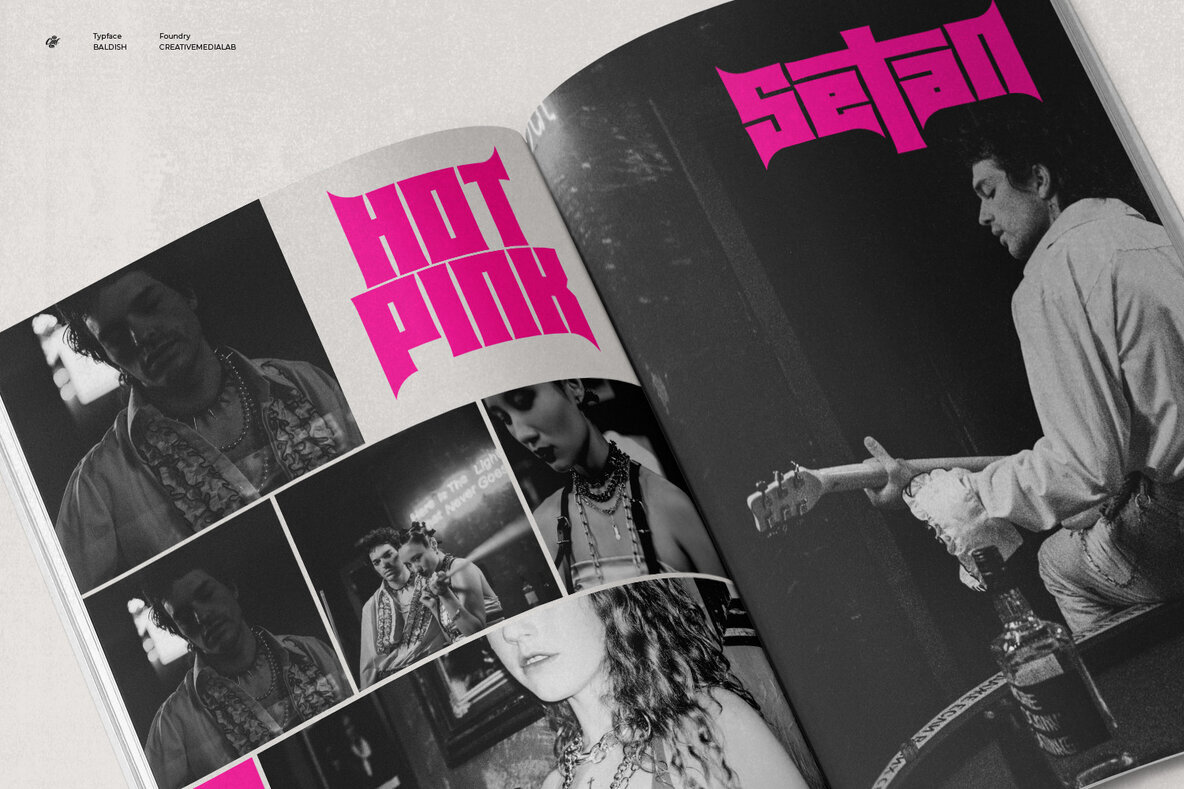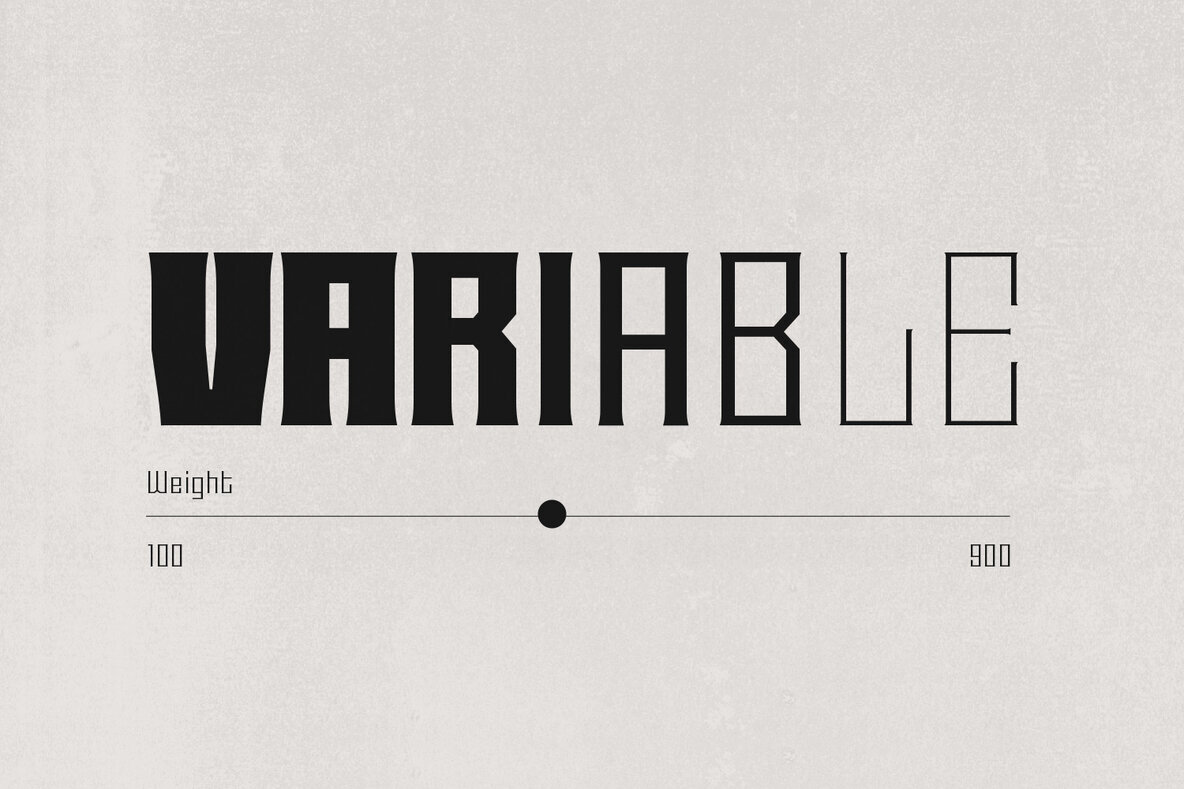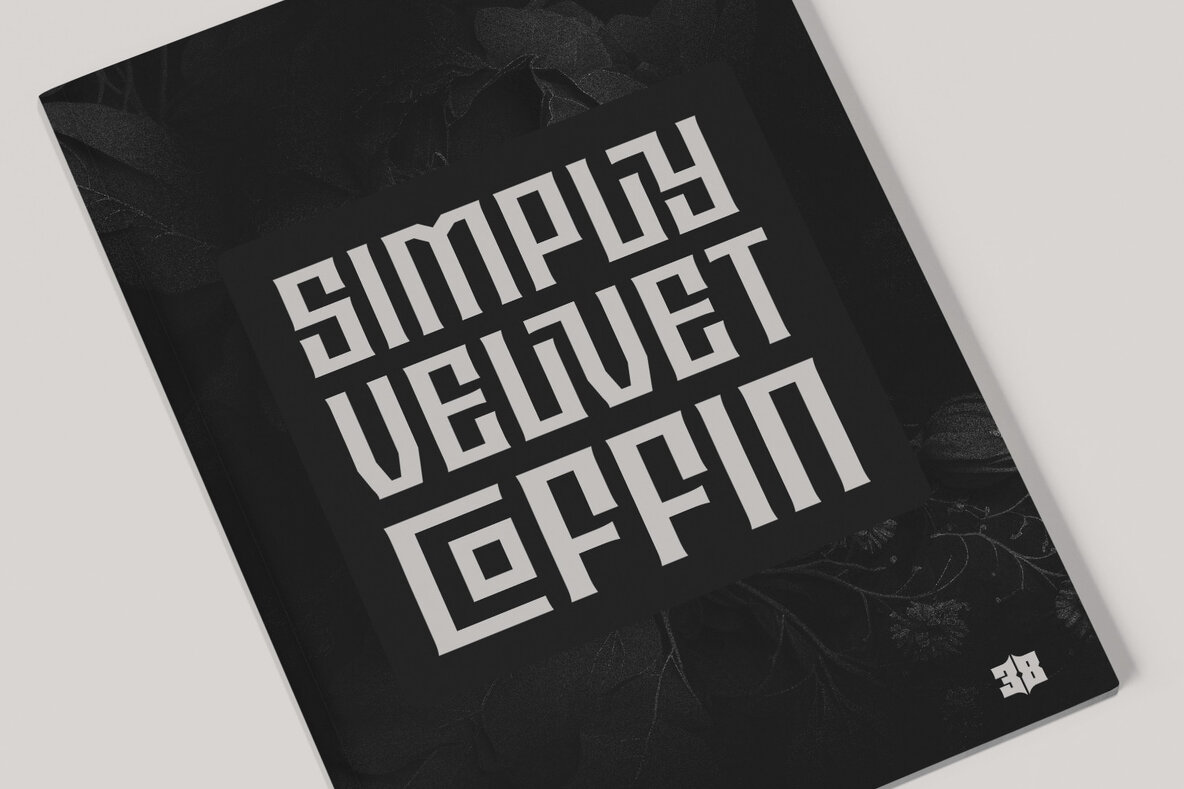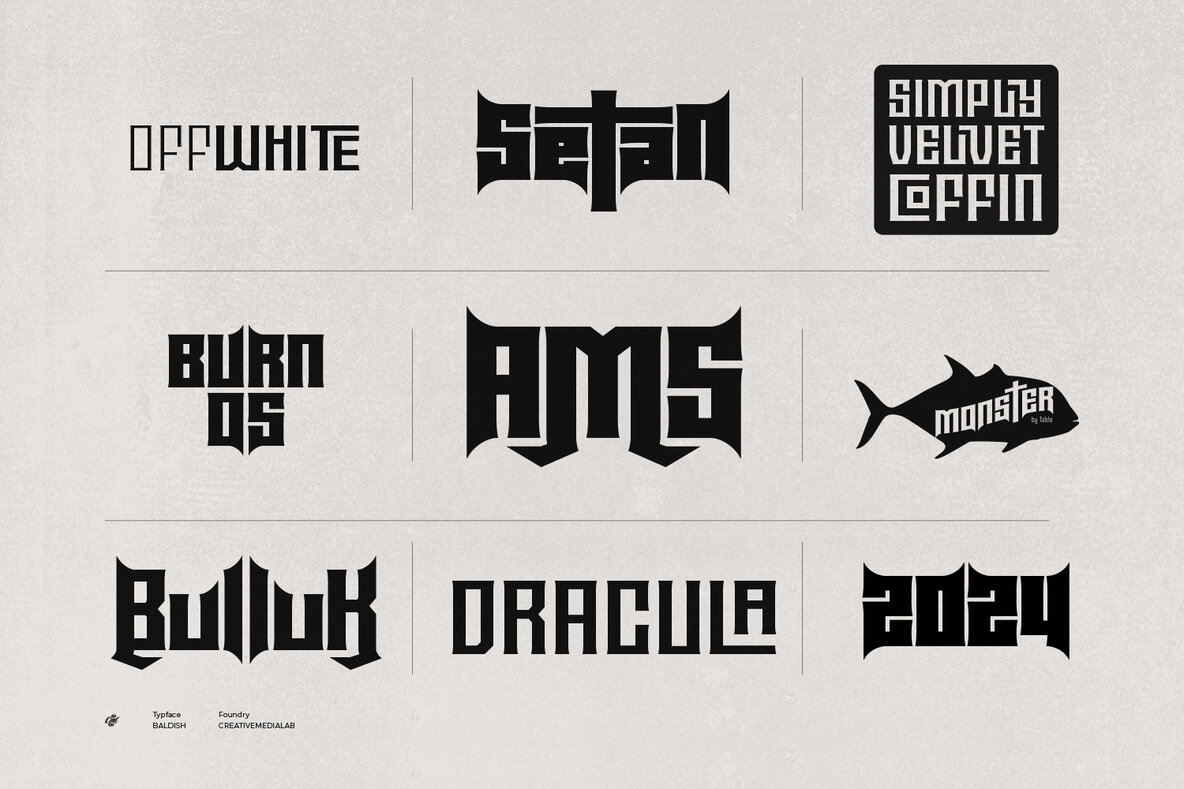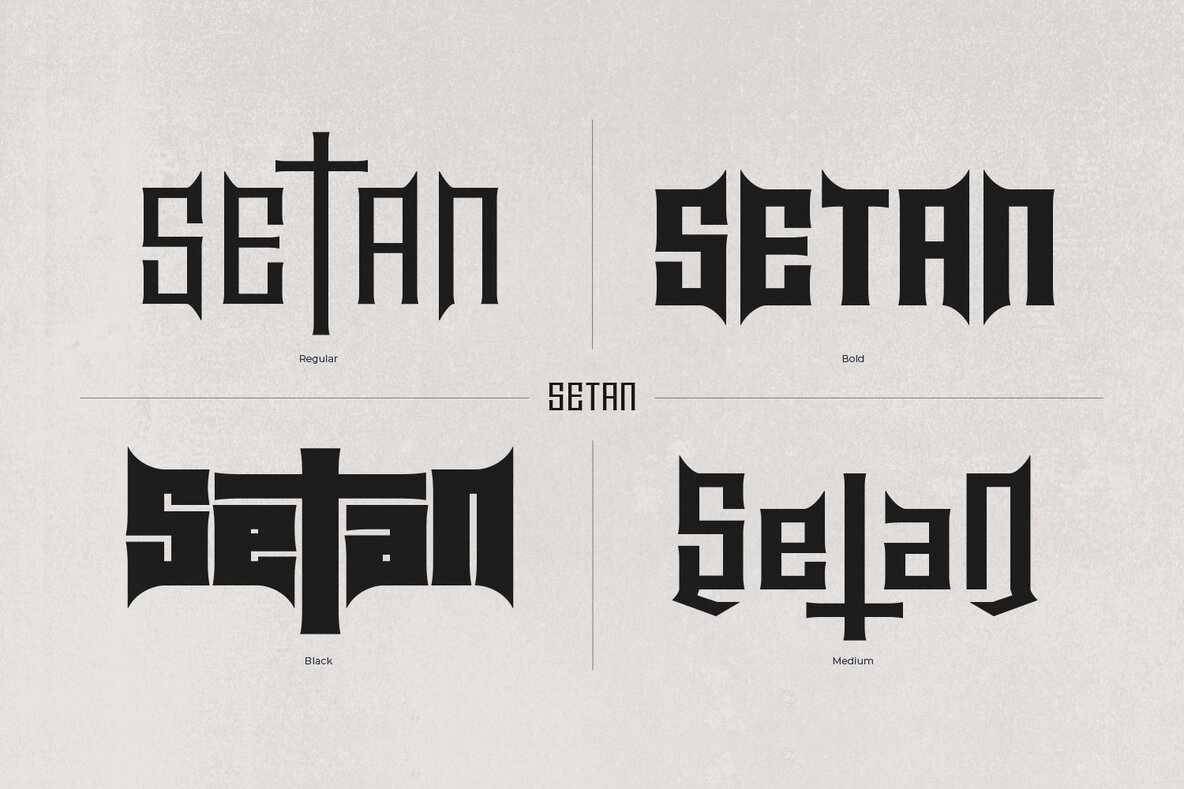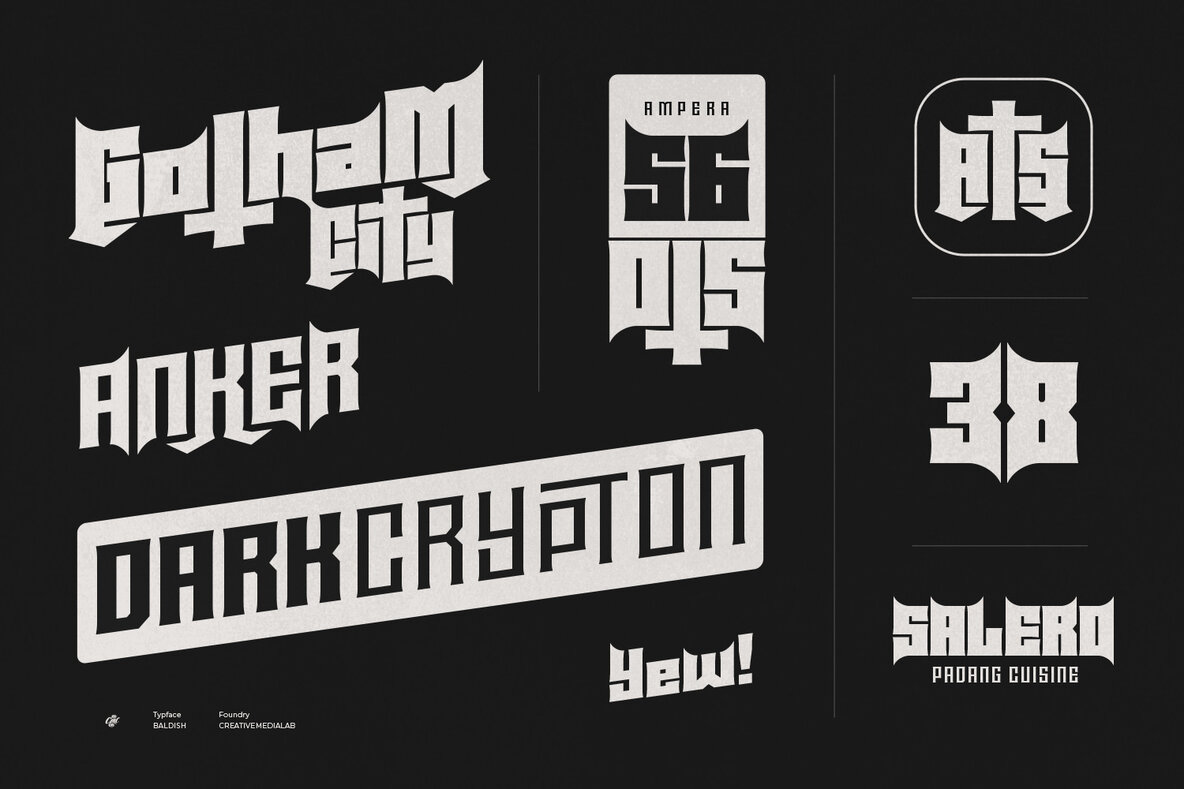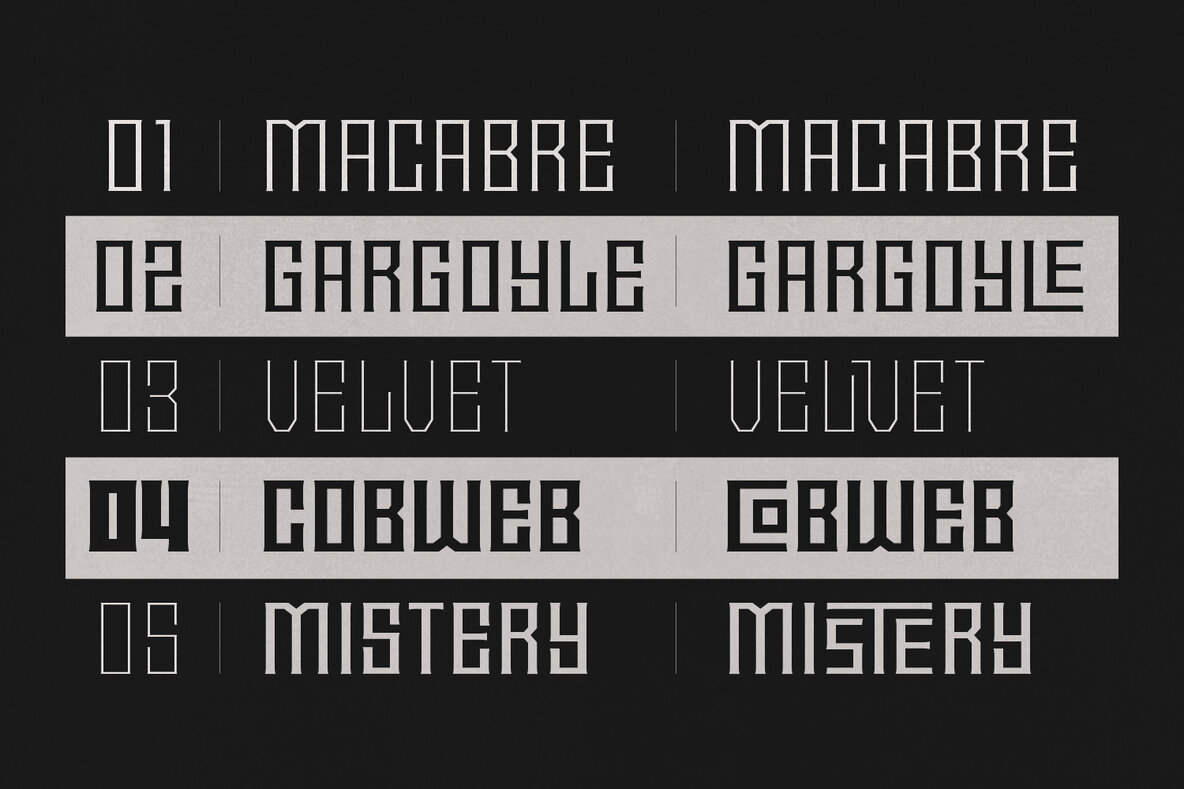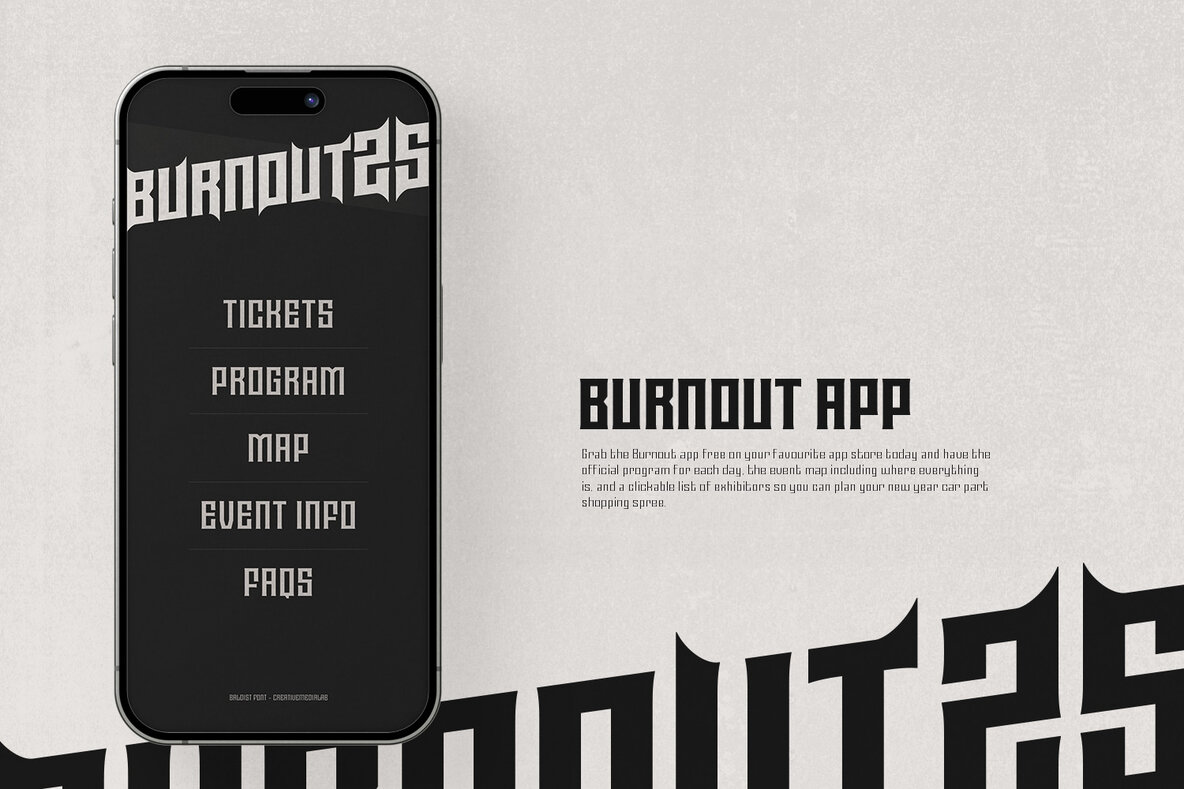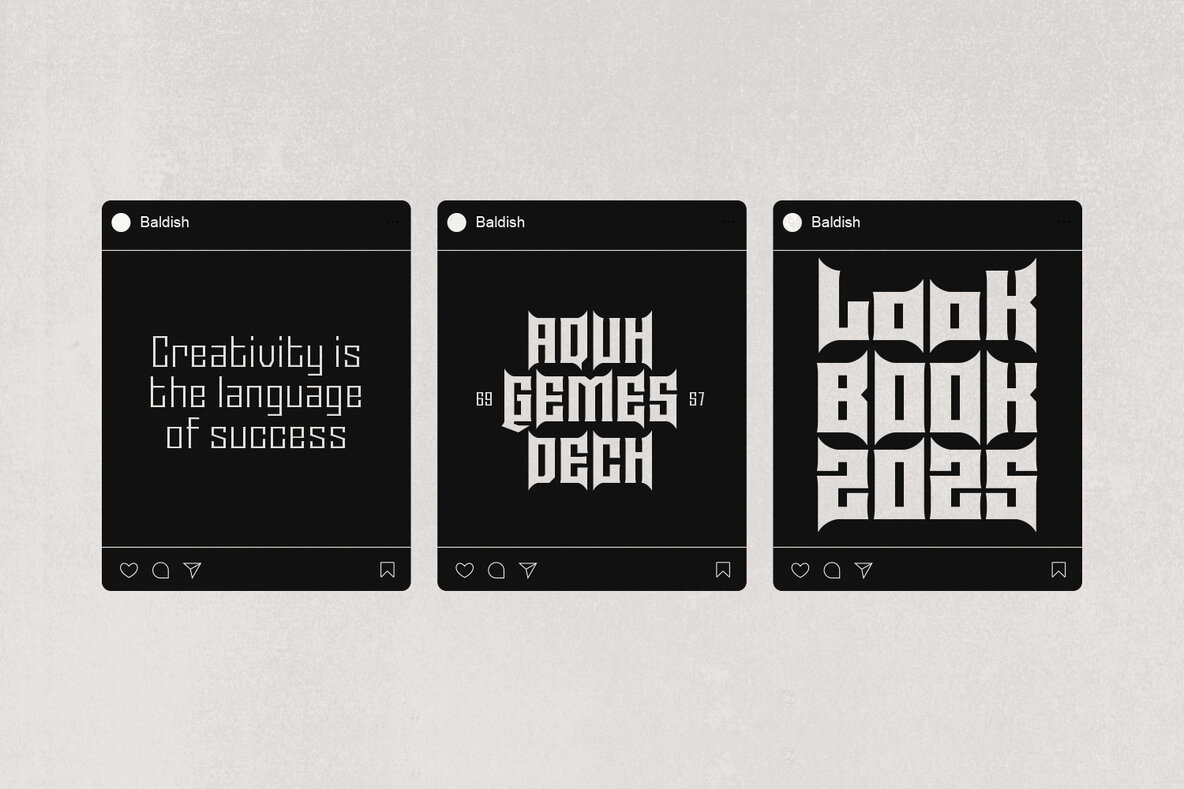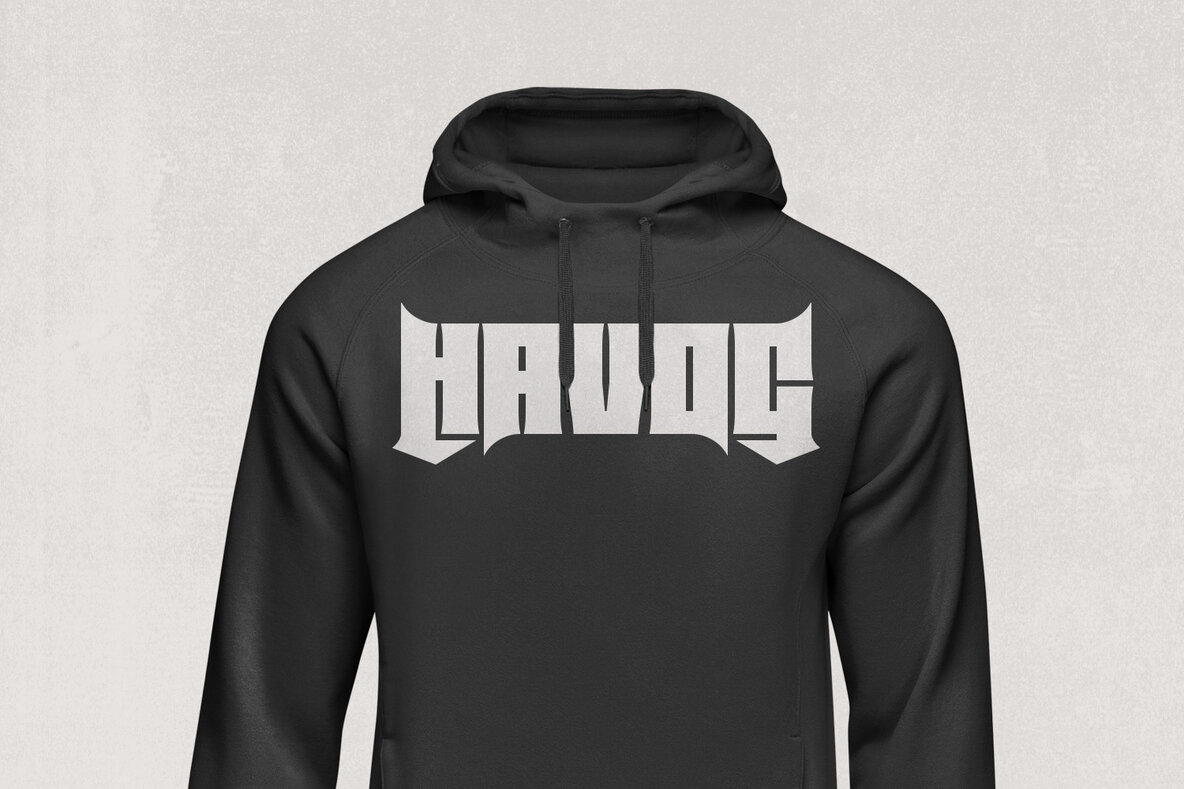
Baldish Font
Baldish is a modern display font inspired by the roof of Rumah Gadang, a traditional Minangkabau house located in West Sumatra, Indonesia. The font features alternate sharp corners on the top and bottom sides, which makes it perfect for creating word titles or logos with a Gothic or black metal theme. This writing style is also commonly used in the logo of Padang cuisine restaurant, which is famous worldwide. Baldish comes in seven different weights, ranging from thin to black, and is available in variable formats, making it easy for you to pick the thickness of the letters.